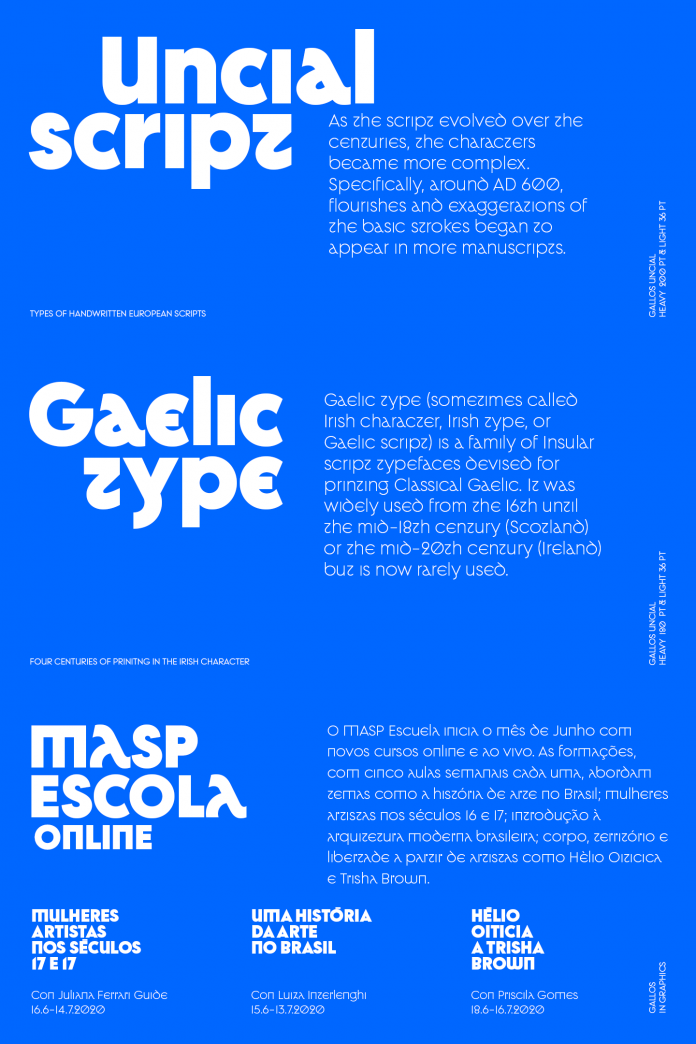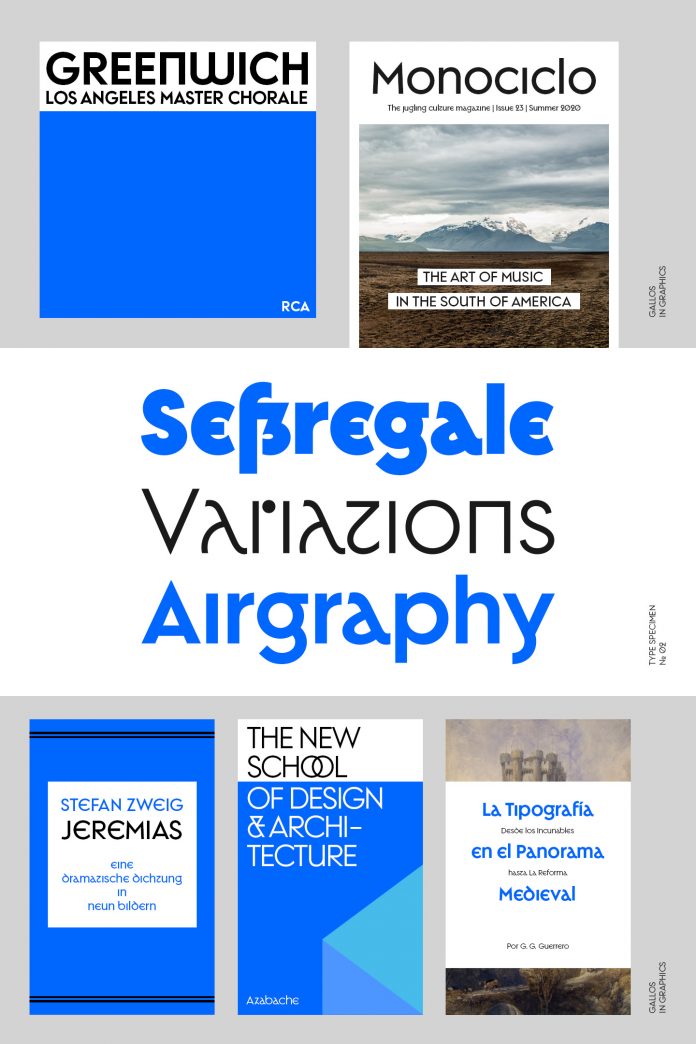
Gallos, a font that combines the conceptual historical elegance of the Uncials with the practical rationalism of the geometric style.
Published just recently by W Foundry, the font family is composed of two subfamilies: Gallos Uncial and Gallos Architype. The letters “M”, “N”, “W”, “a”, “m”, “n”, “r”, and “w” differ between these two styles. The classical geometric style of the Uncial script is depicting more conventional uppercase and lowercase letters “m” and “n”. The Architype one is inspired by Paul Renner’s Architype model, thus the leaned “a” has an open counter, the “r” is composed of a stem and a dot, and the rest of the mentioned letters were built using square rational features. Both styles are connected by classical Uncial features such as the curved stroke “e” and curved shaft “t”. A Gaelic touch can be seen in the uppercase and lowercase letters “K” and “X”. Also, the curved descender “g” and “y” alongside the curved stem “z” connect quite well with the rest of the type system and provide more uniqueness to the Gallos font family.